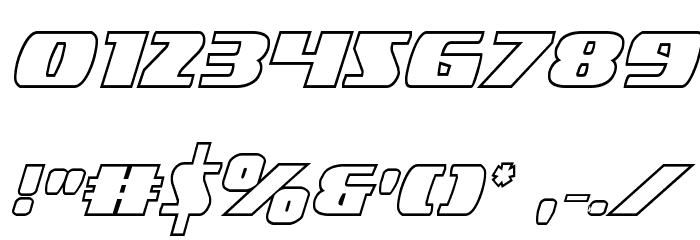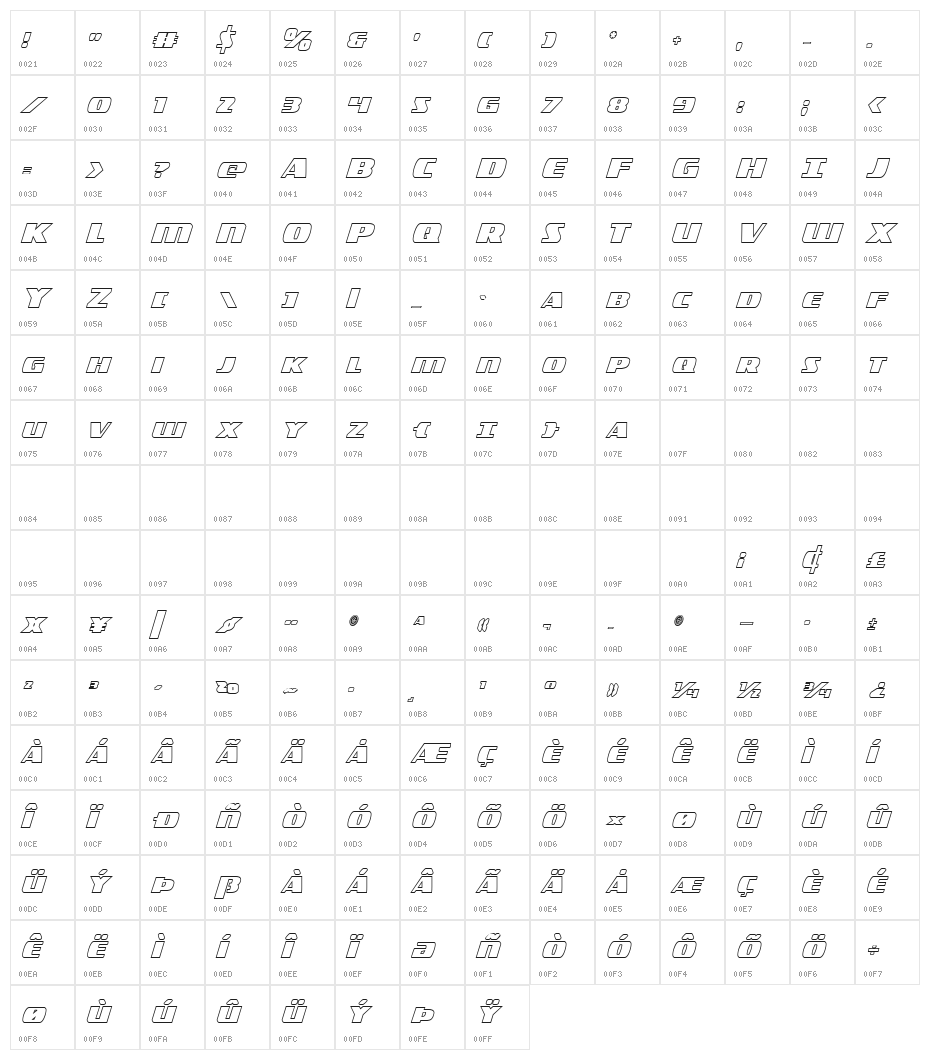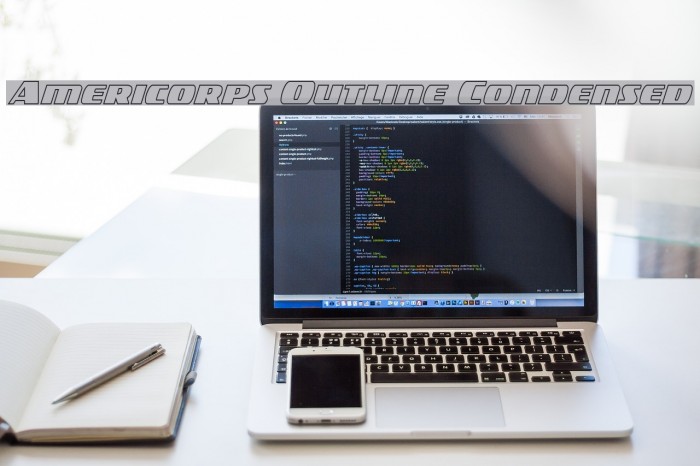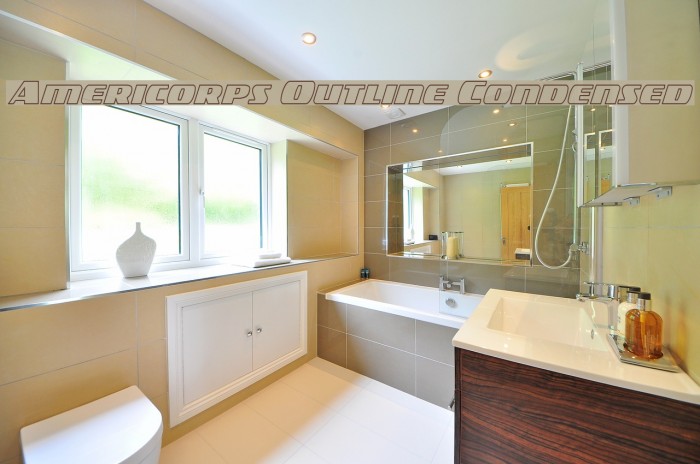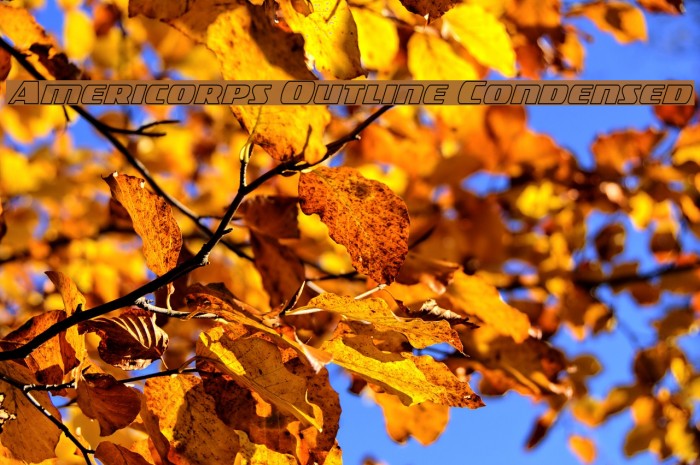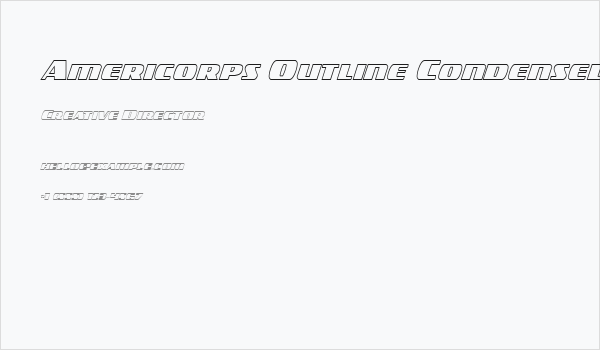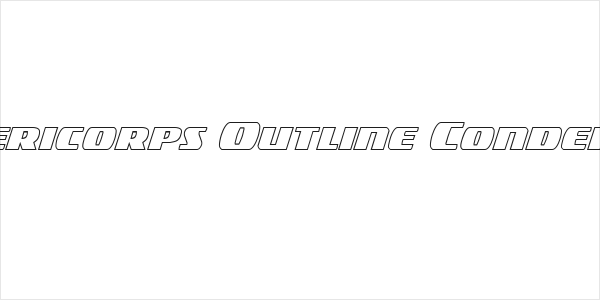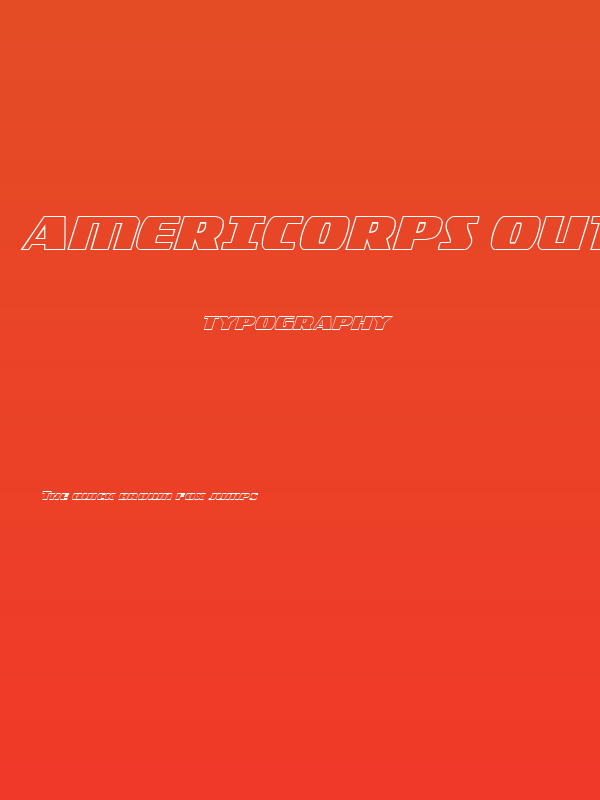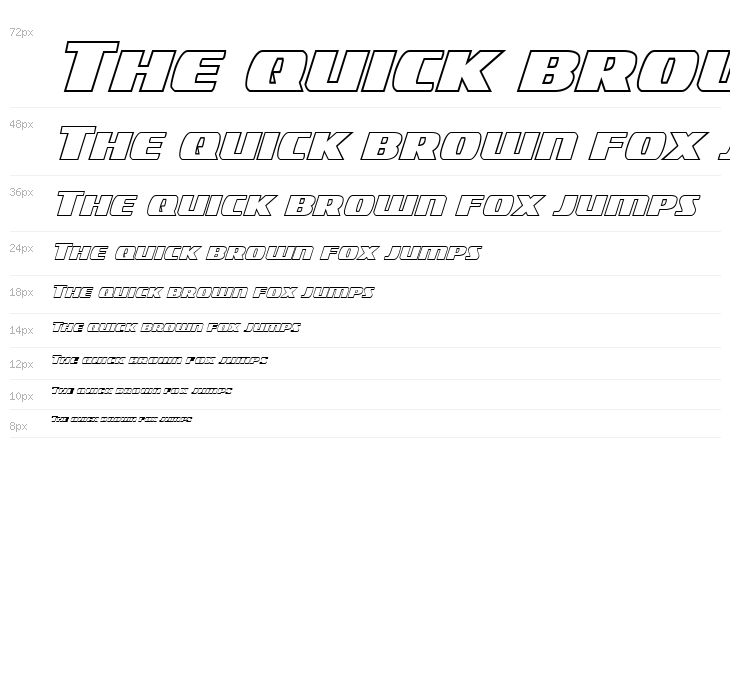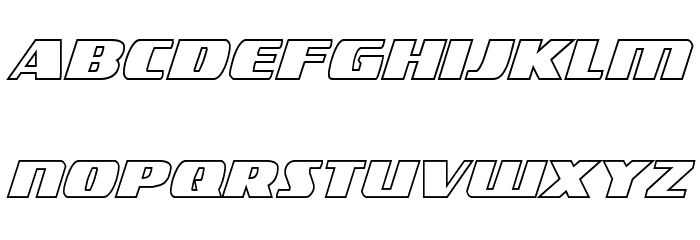
Americorps Outline Condensed Font
Americorps Outline Condensed Description
This font features an outlined, condensed style that exudes a modern and sleek appearance. The uppercase and lowercase letters are designed with a geometric precision, creating a uniform and structured look. The characters are slightly slanted, adding a dynamic and forward-moving feel. The numbers and special characters maintain the same outlined and condensed characteristics, ensuring consistency across all glyphs. The overall design is clean and minimalistic, making it suitable for a variety of applications where a contemporary and bold statement is desired.